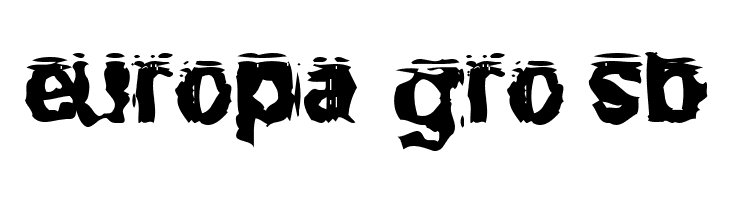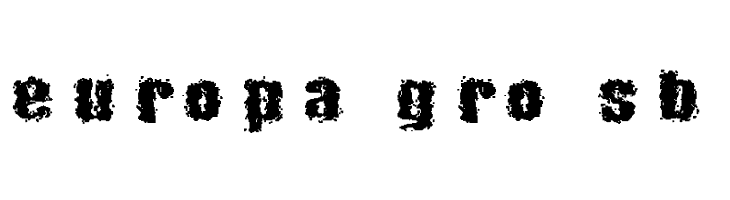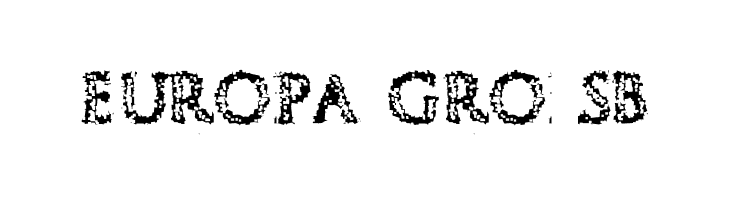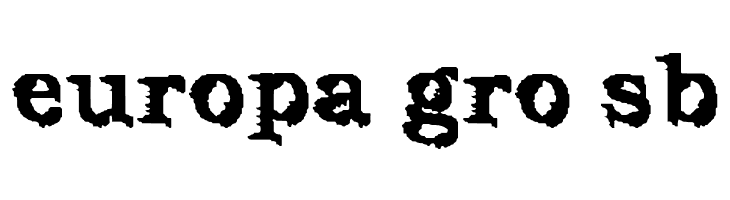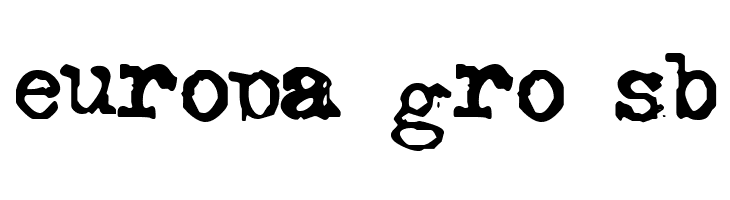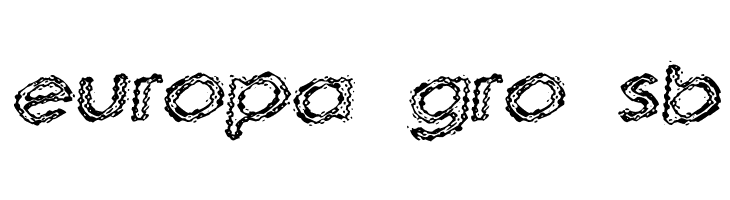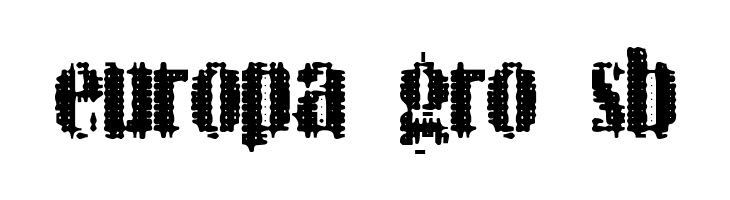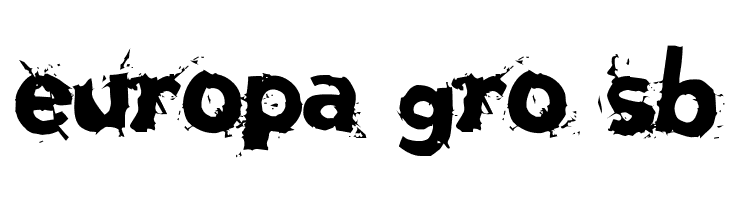
A bold, distressed font with a textured, grunge style.
A distressed, grunge-style font with a rough, textured appearance.
A playful, hand-drawn font with a textured, sketch-like appearance.
A bold, distressed font with a grunge, textured appearance.
A bold, italic typewriter-style font with a rough, textured appearance.
A rugged, vintage typewriter-style font with a distressed, textured appearance.
A bold, textured font with a rugged, distressed appearance.
A bold, distressed font with a textured, vintage appearance.
A whimsical, decorative font with a fuzzy, textured appearance.
A bold, distressed font with a grungy, textured style.
A bold, distressed font with a vintage, grunge aesthetic.
A playful, hand-drawn font with a sketch-like, textured appearance.
A bold, distressed font with a vintage, textured style.
A bold, textured font with a playful, hand-drawn style.
A bold, textured font with a rugged, hand-crafted appearance.
A textured, embroidery-inspired font with a bold, handcrafted look.
A bold, textured font with a cloud-like, artistic appearance.
A rugged, oblique font with a distressed, textured appearance.
A hand-drawn, textured font with an artistic, graffiti-like style.